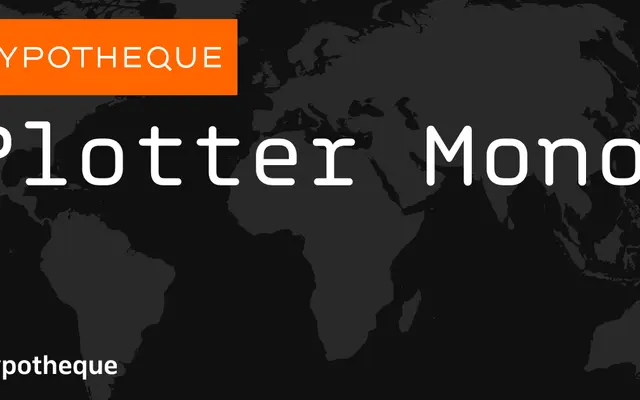
Plotter Mono
A system of monospaced, proportional, stencil and display typefaces unified by a plotter-inspired geometric construction, available in city-named regional variants.
Part of a broader Plotter system, Plotter Mono sits alongside proportional, stencil and display subfamilies in four weights from Light to Bold. The Display subfamily extends into layered colour variants with separate Bold Layer A through D cuts, enabling chromatic typesetting. City-named variants including Amsterdam, Bengaluru, Copenhagen and Damascus suggest regional script or stylistic adaptations within the system.
Plotter Mono is a monospaced typeface with stencil and display variants, clearly belonging to the mono category; its geometric construction and system-oriented design place it in the geometric mono subcategory.